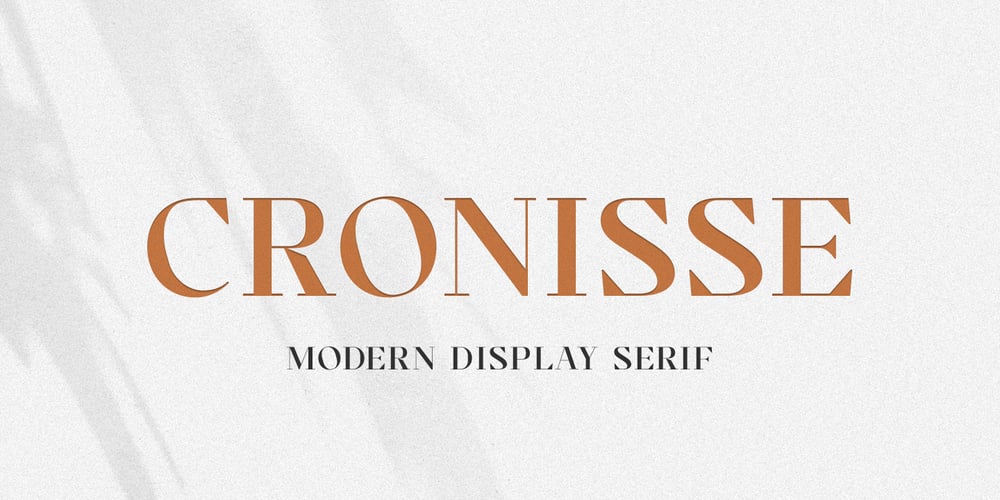
Cronisse
Cronisse font
Cronisse Font Family was designed by Abdul Malik Wisnu and published by Almarkha Type. Cronisse contains 1 styles and family package options. Introducing Cronisse – Modern Display Serif inspired by the famous minimalist logo, perfect for the purposes of designing templates, brochures, videos, advertising branding, logos and more.What’s Included : + Standard glyphs+ Web Font+ International Accent+ Works on PC & Mac+ Simple installations Accessible in the Adobe Illustrator, Adobe Photoshop, Adobe InDesign, even work on Microsoft Word.PUA Encoded Characters – Fully accessible without additional design software.Fonts include multilingual support Image used : All photographs/pictures/vector used in the preview are not included, they are intended for illustration purpose only.Cheers! Thank You